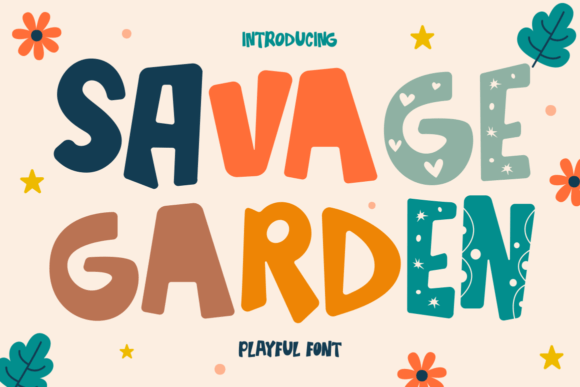
Introducing Savage Garden Font, the ultimate choice for those seeking the best font for printing reading. This decorative font family, created by the talented putracetol, is a captivating trio of typefaces that will instantly charm and captivate your audience.
With its unique and irregular letterforms, Savage Garden Font exudes a whimsical and playful vibe, making it the perfect companion for child-related themes or baby-oriented designs. But its versatility doesn't stop there. This font family offers three distinct versions: clean/regular, decorative, and block/fill, allowing for endless creative possibilities.
Whether you're designing logos, printing materials, branding, quotes, posters, greeting cards, birthday cards, invitations, or children's books, Savage Garden Font will infuse your projects with a touch of joy and creativity. Its eye-catching aesthetics will leave a lasting impression on your audience, making your designs stand out from the crowd.
But what sets Savage Garden Font apart is its PUA encoding. With this feature, you can effortlessly access a vast array of amazing glyphs and ligatures. This means that you have the power to add unique and intricate details to your designs, elevating them to a whole new level.